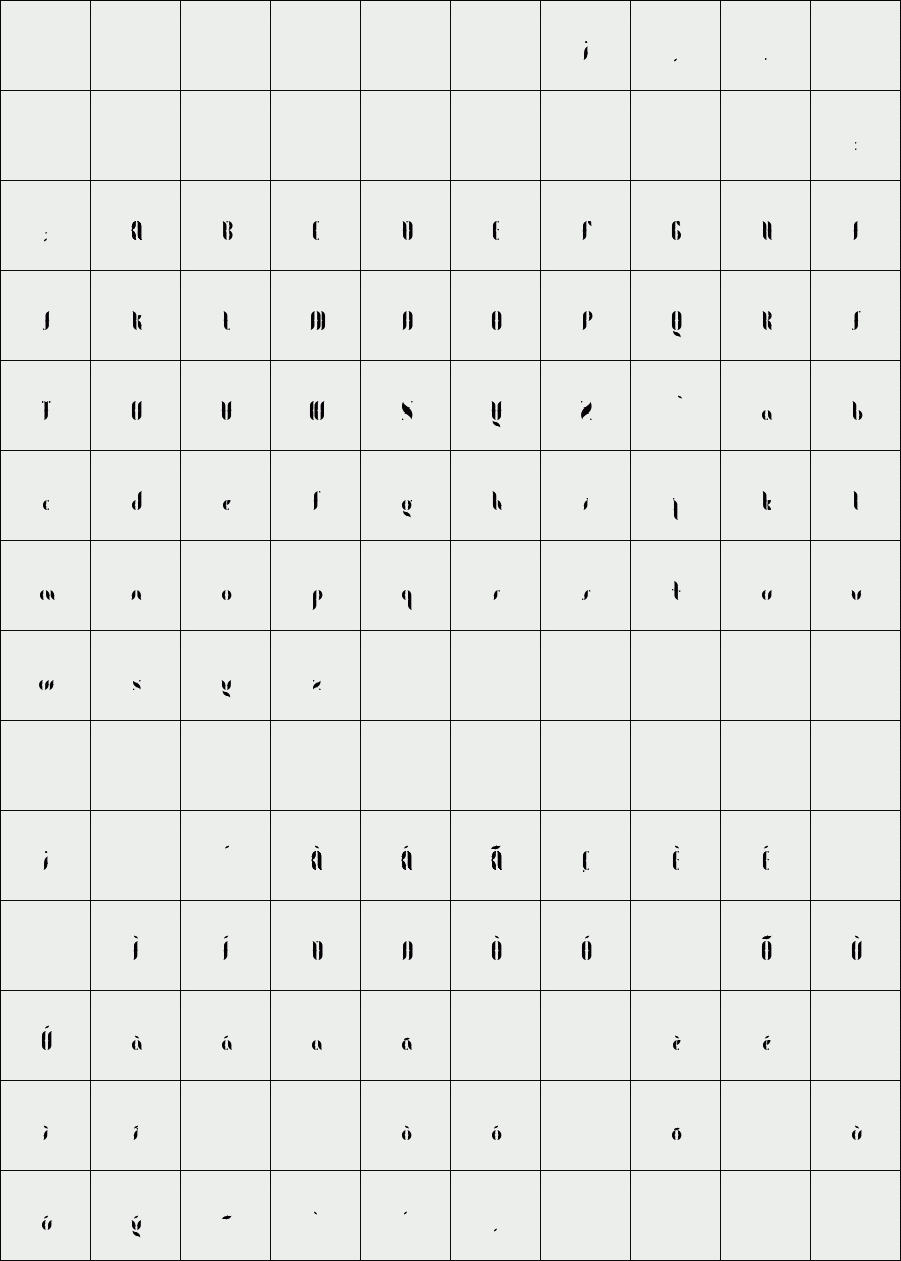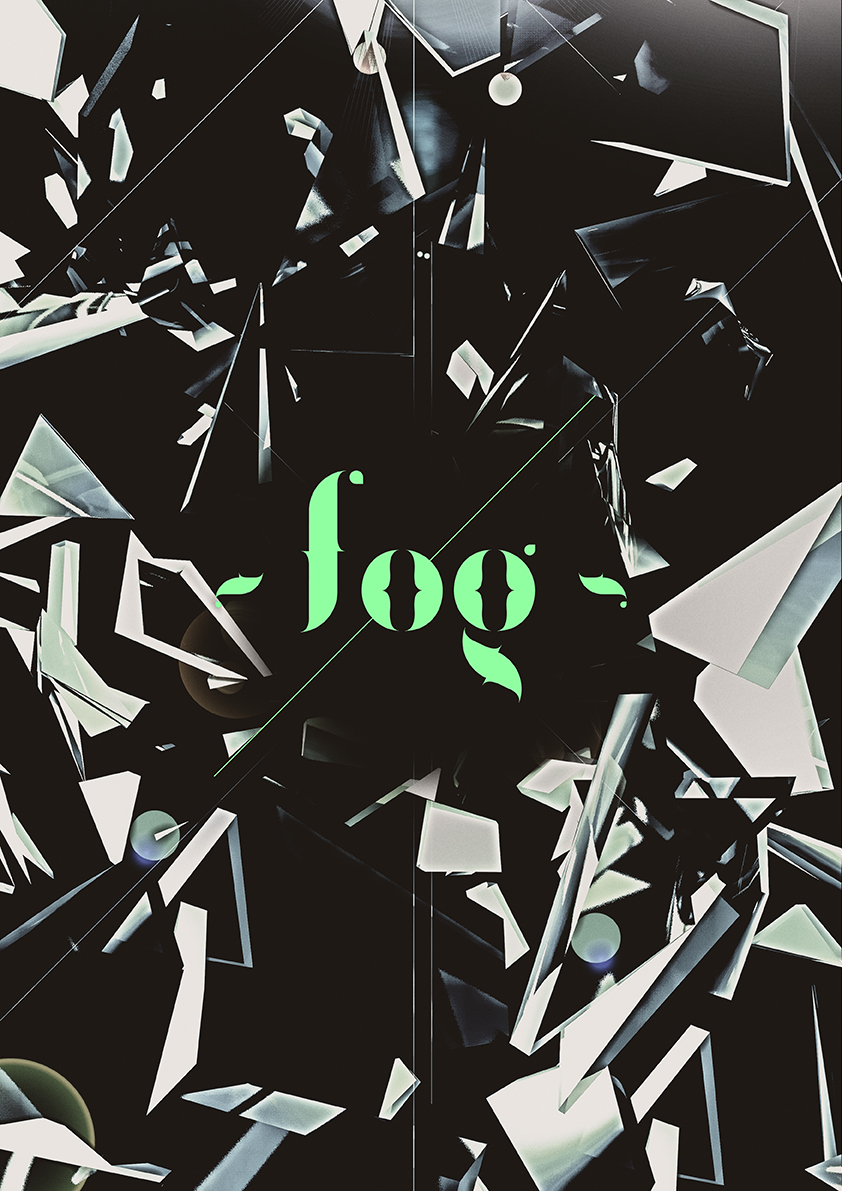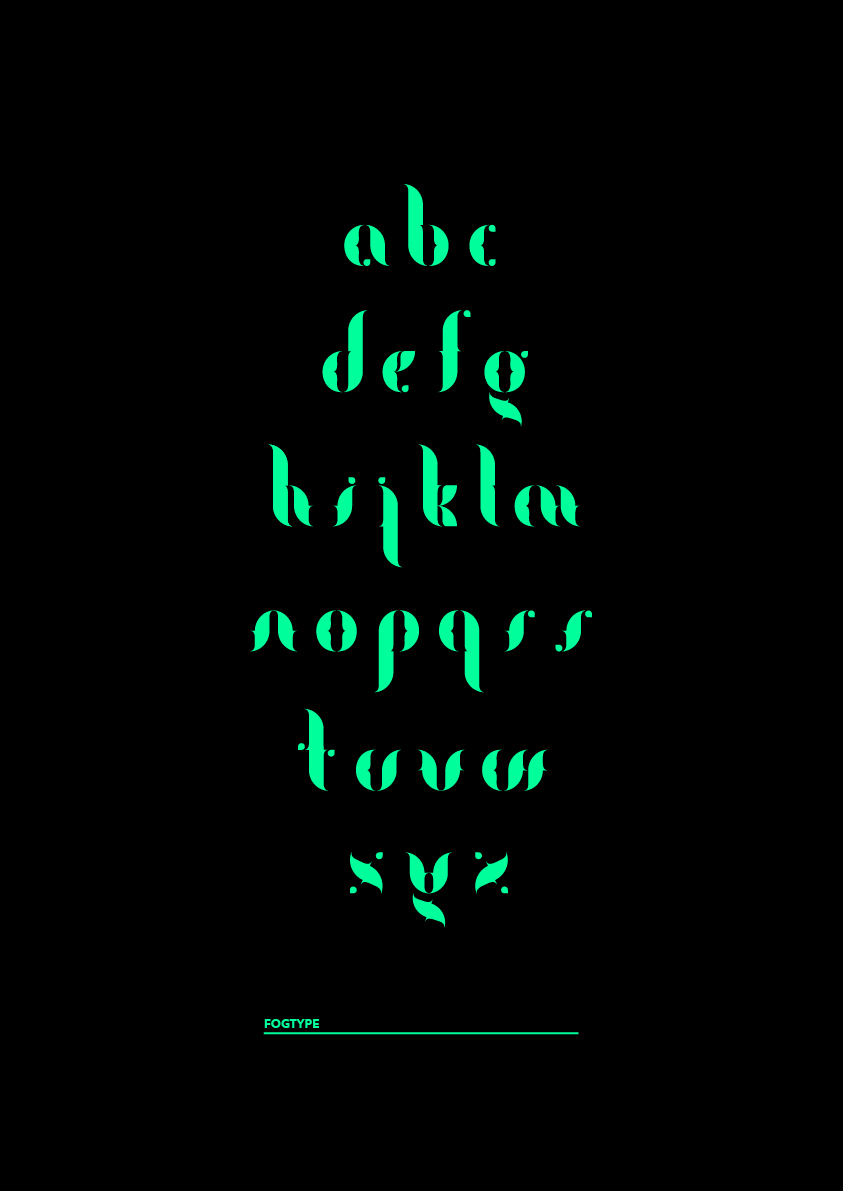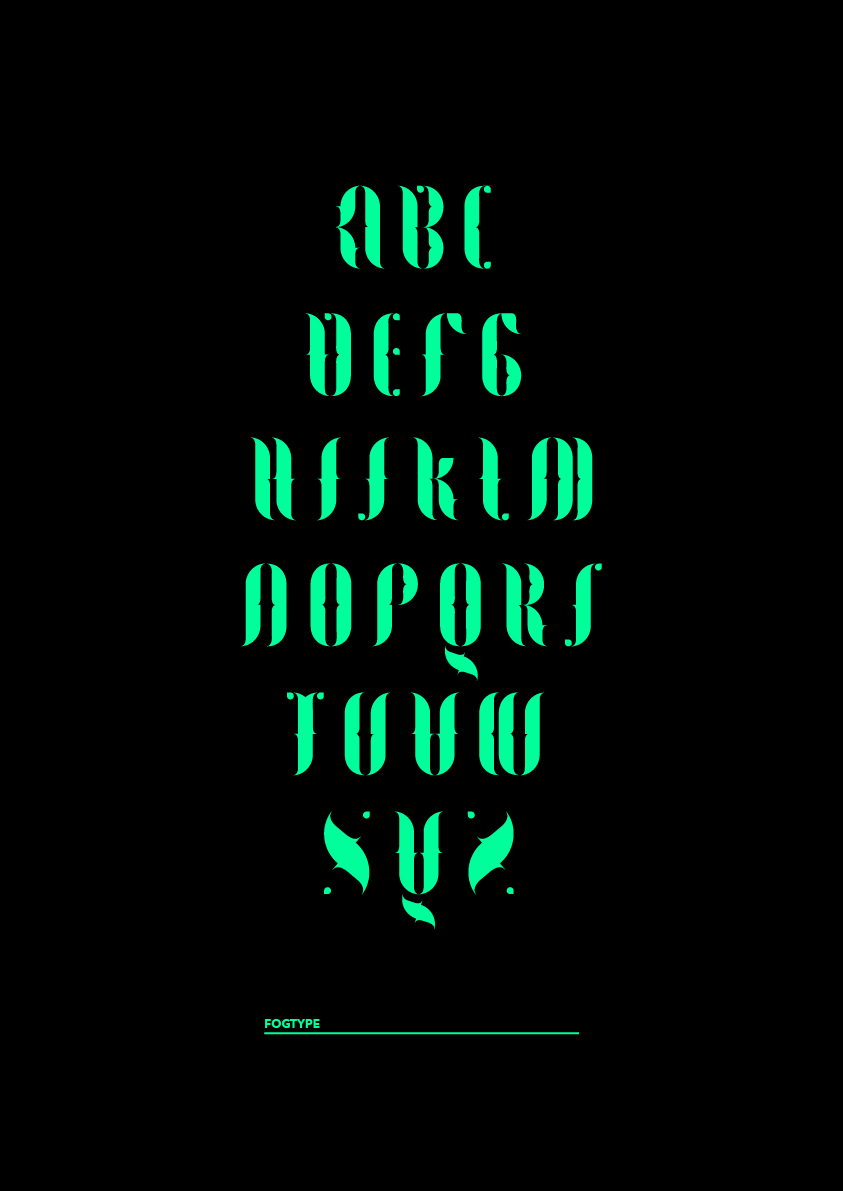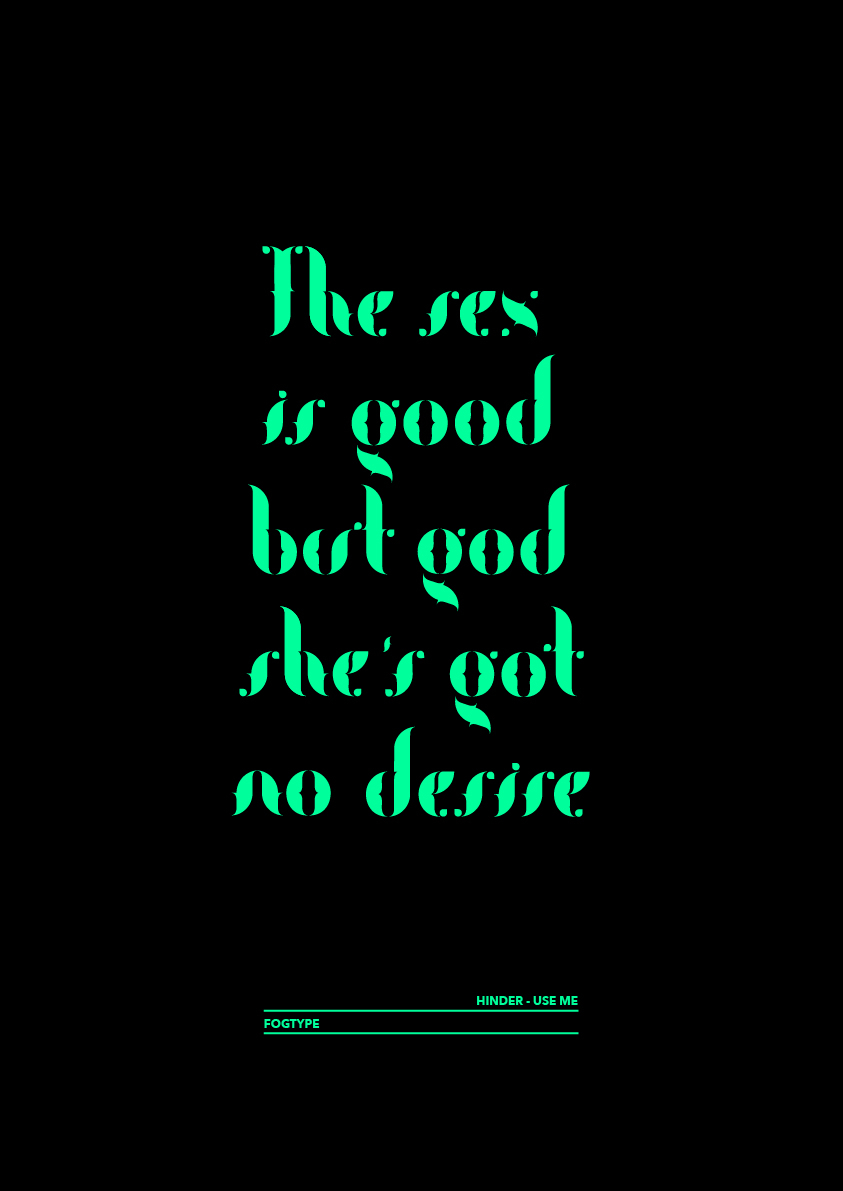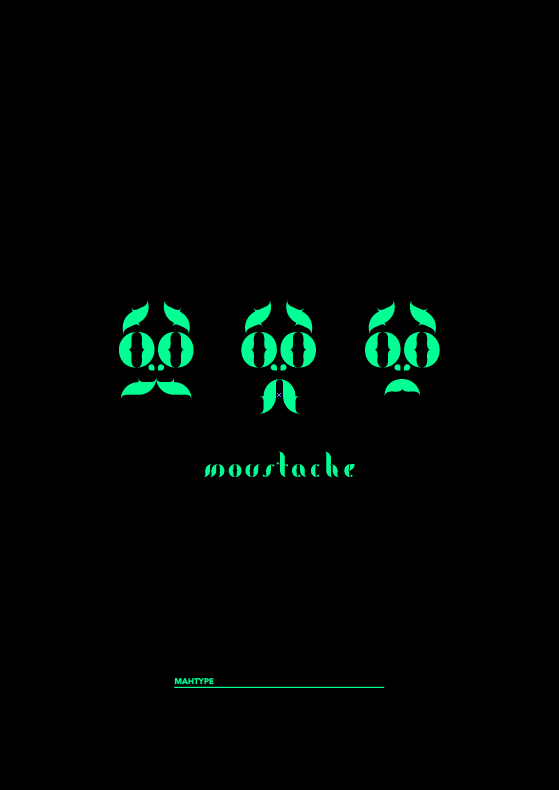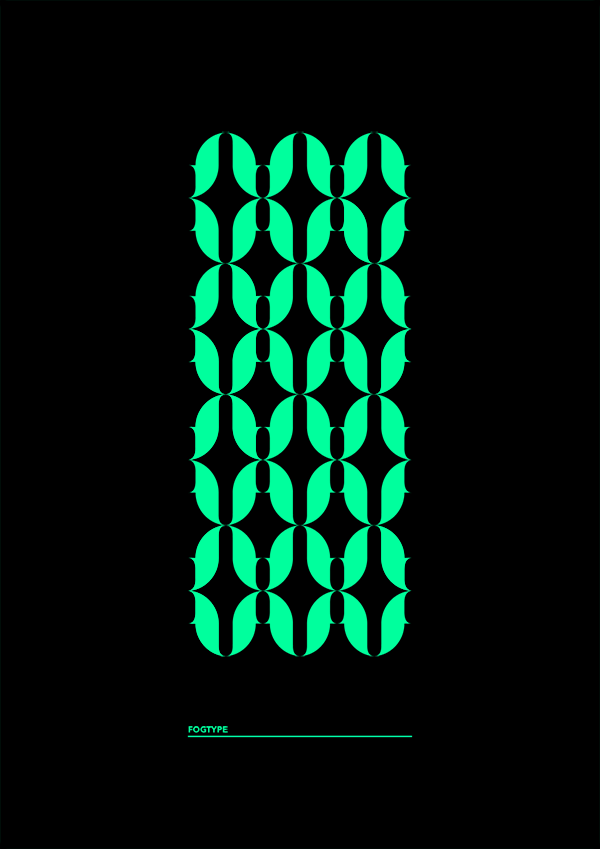
FogType
Fogtype is a modular typography born with the intention of breaking schemes using basic and smart forms to create from its alphabet to
illustrations based on repetition.
A digital project has been done focused on its manual after using, therefore resulting parts have been applied on linoleum providing a wide range of printing applications.
Designer: Jimbo Bernaus